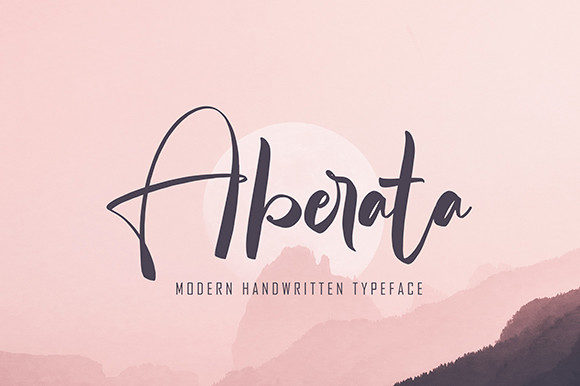
Aberata Font: Elevate Your Designs with Elegance and Sophistication
Aberata is a stunning script font that has been making waves in the design community. Its elegant and sophisticated style makes it an ideal choice for a wide range of projects, from quotes and logos to blog headers and posters. In this article, we’ll dive into the world of Aberata Font, exploring its features, uses, and benefits for designers and crafters.
The Beauty of Aberata Font
Aberata Font is a beautiful script font that exudes elegance and sophistication. Its flowing curves and intricate details make it a perfect choice for designs that require a touch of luxury and refinement. The font’s unique style is sure to capture the attention of your audience, making it an excellent choice for projects that require a lasting impression.
Endless Possibilities with Aberata Font
The versatility of Aberata Font is one of its most significant advantages. It can be used for a wide range of projects, including:
- Quotes: Add a touch of elegance to your inspirational quotes with Aberata Font.
- Logos: Create a lasting impression with a logo that features Aberata Font.
- Blog Headers: Elevate your blog’s header with a sophisticated and stylish font.
- Posters: Make your posters stand out with Aberata Font’s unique style.
- Branding: Use Aberata Font to create a cohesive brand identity.
- Letters: Add a touch of sophistication to your letters and correspondence.
- Invitations: Make your invitations special with Aberata Font’s elegant style.
- Stationery: Elevate your stationery with a beautiful and refined font.
The list of possibilities is endless, and the only limit is your imagination.
Why Designers and Crafters Love Aberata Font
Aberata Font has become a favorite among designers and crafters due to its unique features and benefits. Here are some reasons why:
- Ease of use: Aberata Font is easy to use and works seamlessly with various design software.
- High-quality design: The font’s high-quality design ensures that it looks great in any project.
- Unique style: Aberata Font’s unique style sets it apart from other fonts, making it an excellent choice for designers who want to create something special.
- Customization options: Aberata Font can be customized to fit your project’s specific needs.
Tips for Using Aberata Font
To get the most out of Aberata Font, here are some tips to keep in mind:
- Pair it with other fonts: Aberata Font pairs well with other fonts, so don’t be afraid to experiment with different combinations.
- Use it sparingly: Aberata Font’s elegance and sophistication can be overwhelming if used excessively. Use it sparingly to create a lasting impression.
- Experiment with colors: Aberata Font looks great in various colors, so experiment with different hues to find the perfect one for your project.
Aberata Font is a beautiful script font that offers a world of possibilities for designers and crafters. Its elegance, sophistication, and versatility make it an ideal choice for a wide range of projects. With its ease of use, high-quality design, and unique style, Aberata Font is sure to elevate your designs and take them to the next level. So why wait? Explore the world of Aberata Font today and discover the endless possibilities it has to offer.